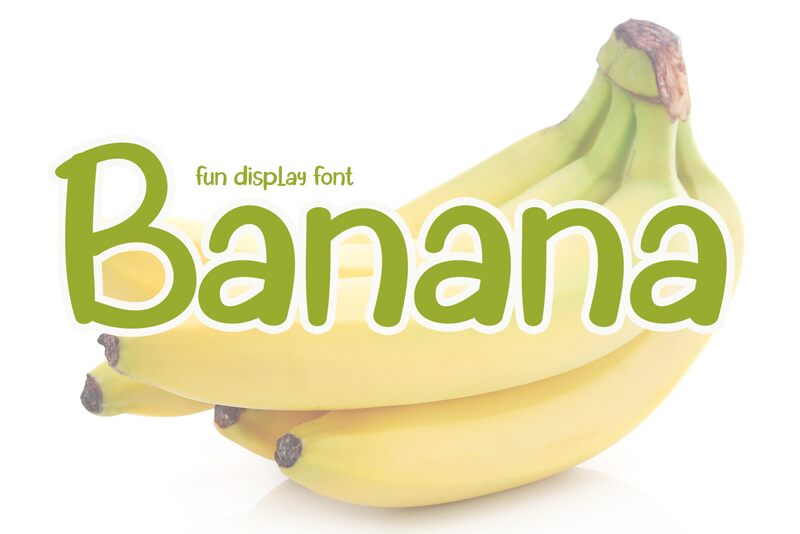
Banana
Dive into the playful charm of Banana, a handwritten font crafted by Etik Fatimah that brings a touch of simplicity and warmth to your creative endeavors. With gentle curves and a flowing, easy-to-read style, this font embodies the joy of casual penmanship.
Its unassuming elegance makes it perfect for an array of projects—think bespoke invitations, eye-catching logos, or delightful packaging. Banana's approachable demeanor ensures your work resonates with authenticity and heartwarming appeal.
Whether you're crafting poignant headlines or whimsical content, let Banana be the brushstroke that paints personality into your design canvas.